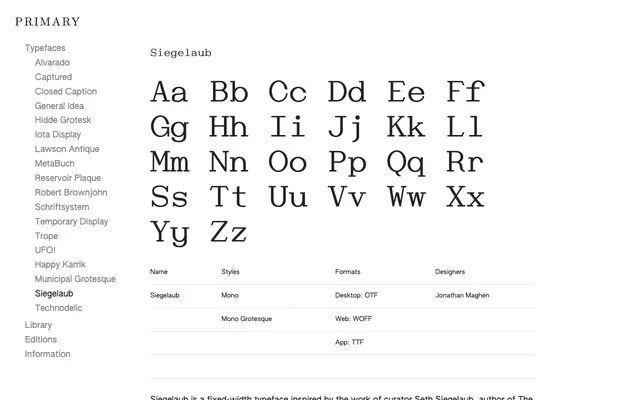
Siegelaub
A fixed-width typeface by Jonathan Maghen, drawn from unidentified caption type spotted in a Hollywood YMCA vitrine and the curatorial legacy of Seth Siegelaub.
Designed by Jonathan Maghen, the typeface takes its name from conceptual art curator Seth Siegelaub and draws direct visual reference from unidentified type used to caption amateur athletics photographs from the 1970s. The family comprises two styles, Mono and Mono Grotesque, each covering 128 glyphs including basic Latin, lining figures, alternates, ligatures and common punctuation. Desktop OTF files are available free for self-initiated, non-profit and cultural projects, with paid licences for broader use.
A fixed-width typeface offered in two styles, Mono and Mono Grotesque, placing it squarely in the monospaced category with grotesque sans-serif characteristics.